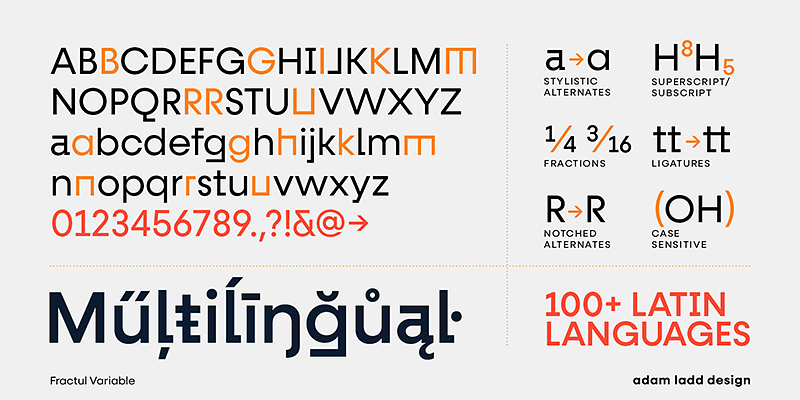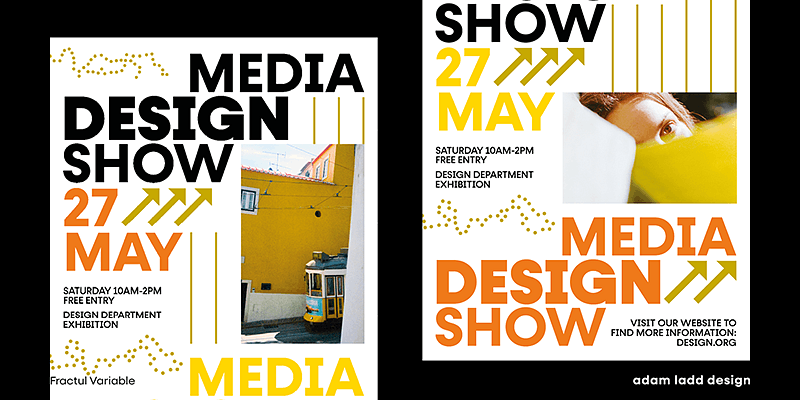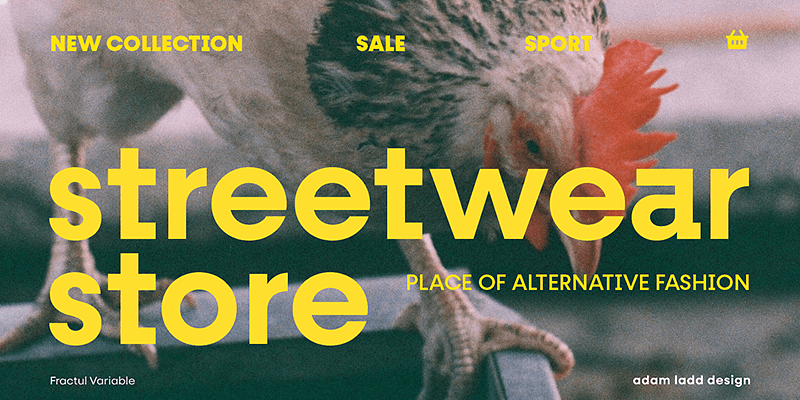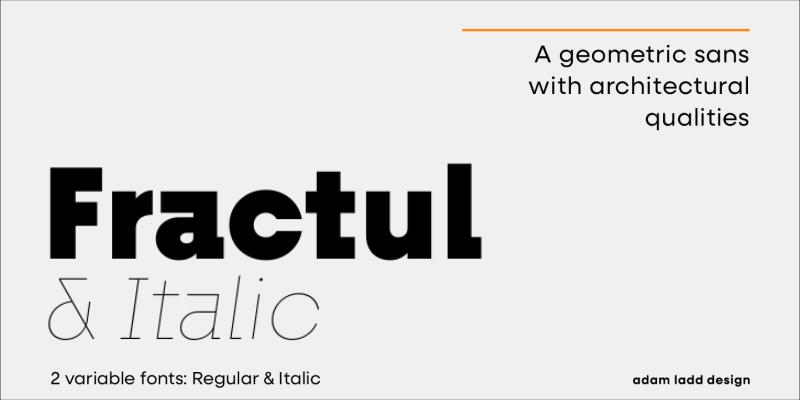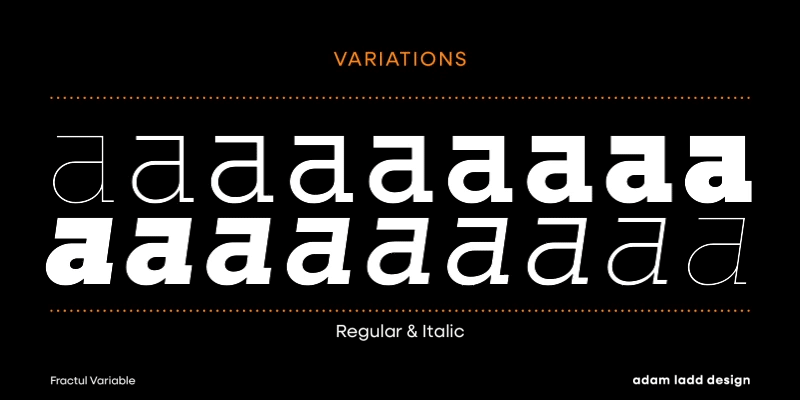
Fractul and Fractul Alt are architectural geometric sans serifs. Dramatically modern because of a larger x-height with a more distinct and avant-garde voice — most evident in characters where specific strokes have been straightened for a strong angular appearance. Fractul has over 600 glyphs and many OpenType features: 6 stylistic sets, standard and discretionary ligatures, case-sensitive punctuation, fractions, numerators, denominators, superscript, subscript, and even a slashed zero.